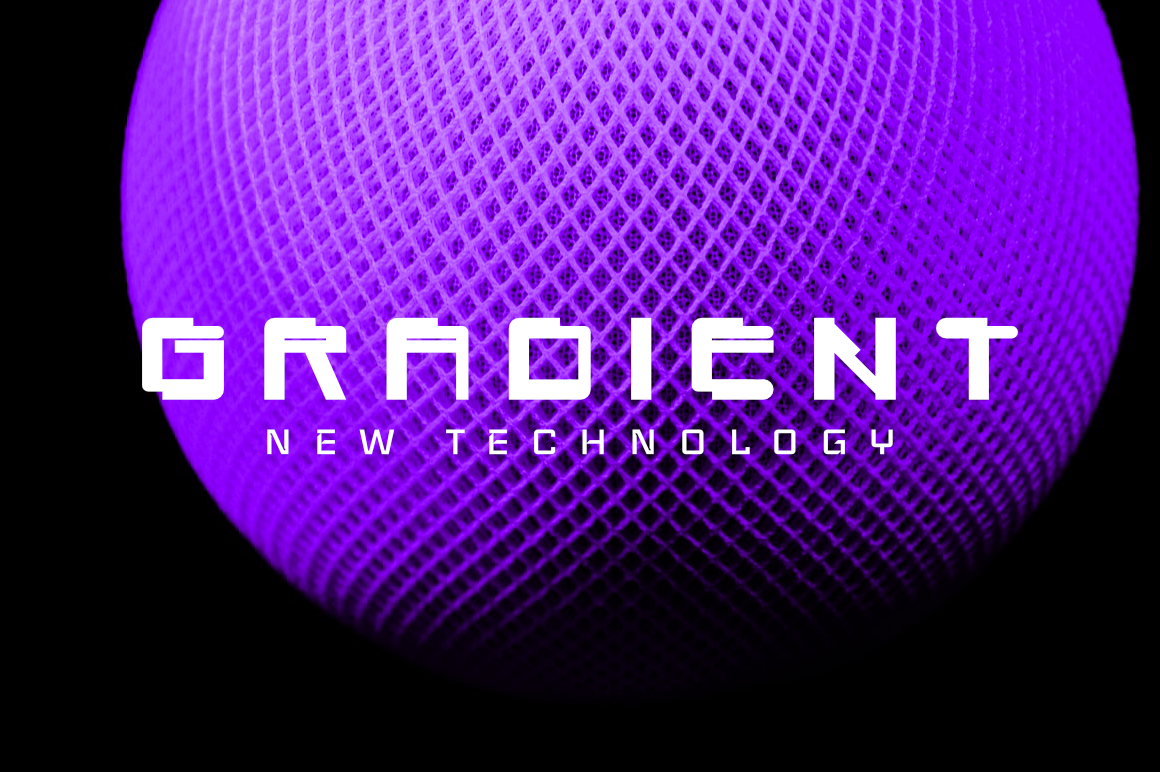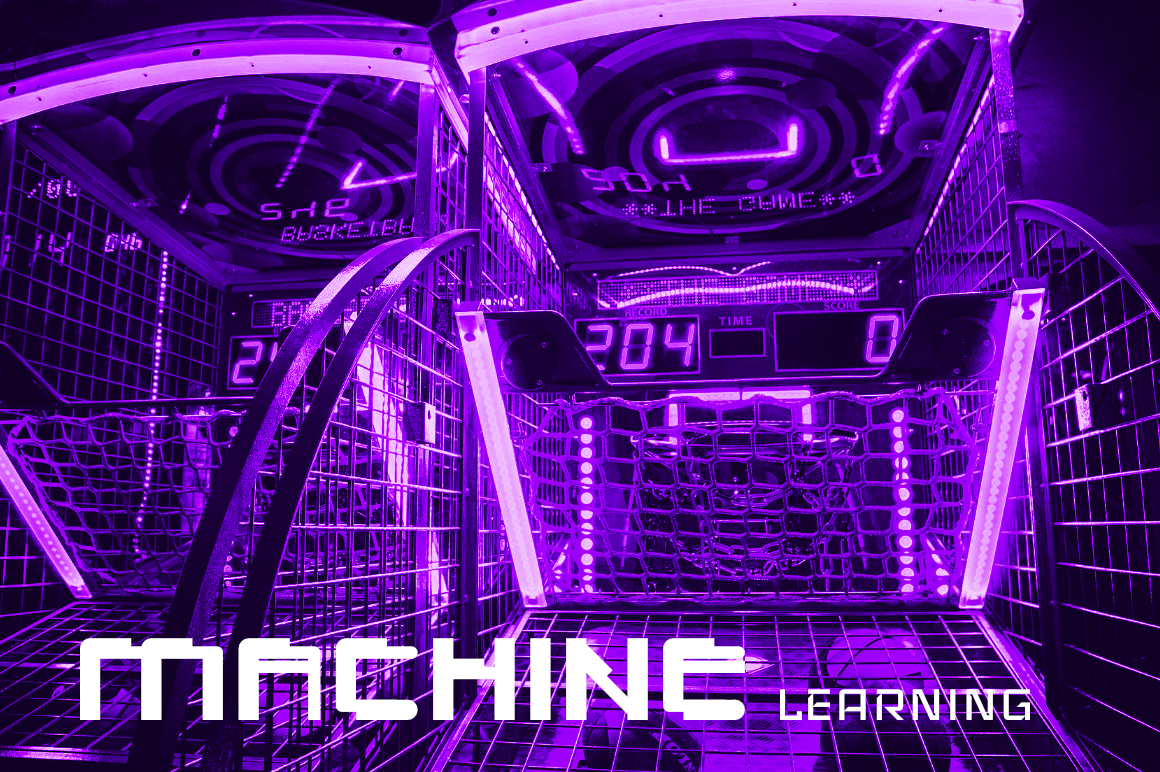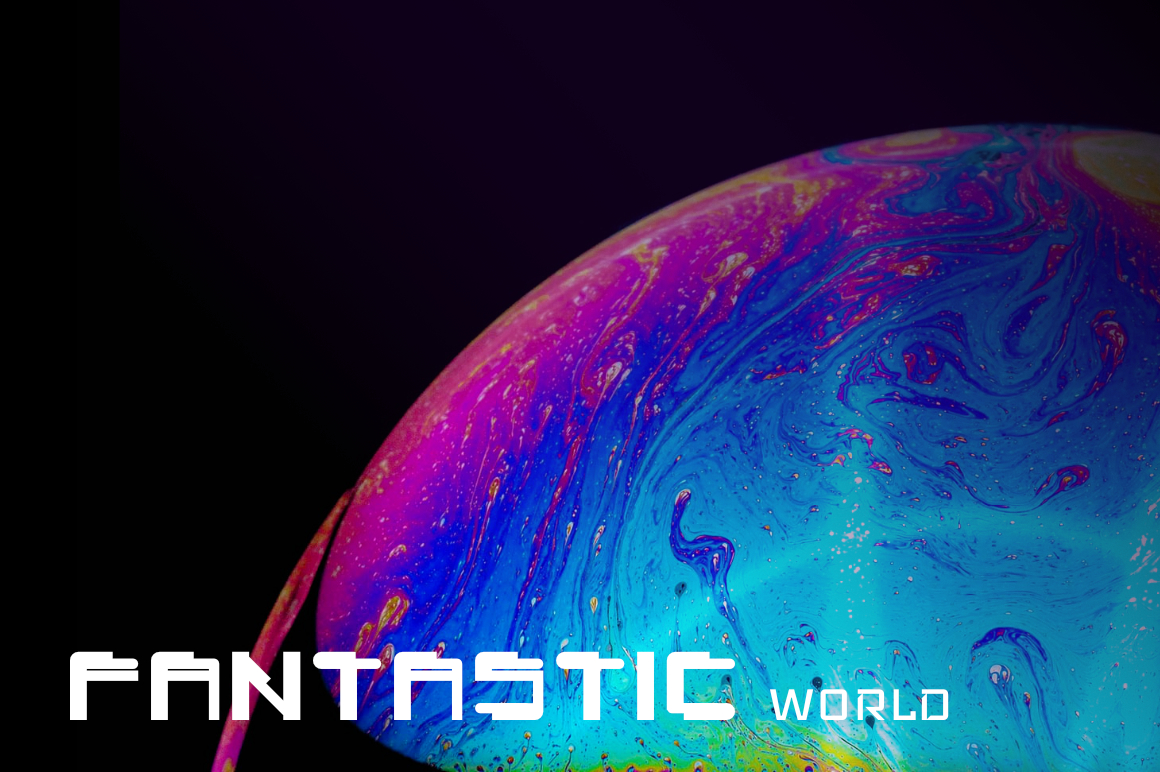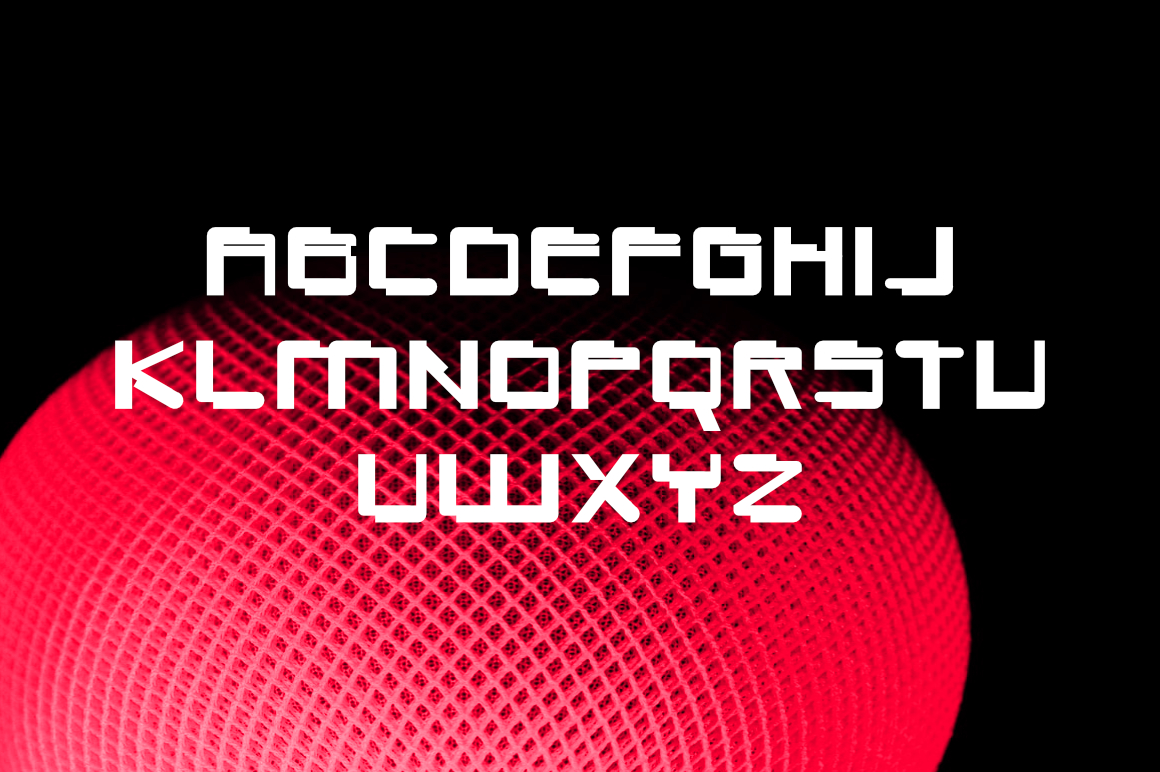
Aeogo Font
Aeogo Display Font
It’s a cool and casual display font. This font is suitable for designs such as t-shirts, sportswear, logos, advertisements, clothing, and more.